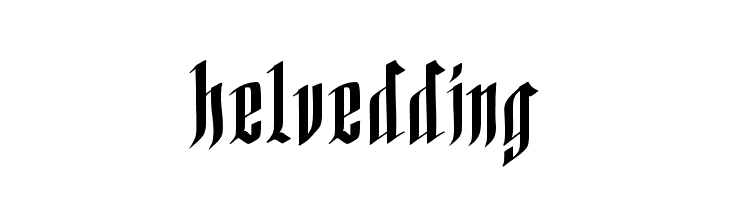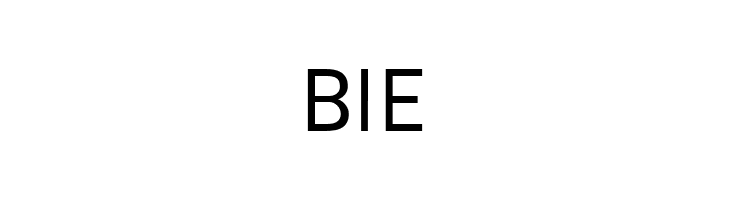
( Lukas Schiltknecht - www.getthepro.ch )
A classic Blackletter font with intricate, ornate letterforms and a Gothic aesthetic.
( Mega Type - creativemarket.com/megatype )
An elegant script font with intricate loops and swashes, perfect for sophisticated designs.
( NewMoleFont )
A pixelated, retro-style font with a blocky, grid-like design.
( NimaVisual - Nima Visual - nimavisual.tumblr.com/ )
A rough, textured serif font with a vintage, distressed appearance.
( Odile Morales )
A modern, geometric font with consistent stroke width and angular design.
( PutraCetol Studio - Putra Novembria Candra Kusuma - creativemarket.com/putracetol )
A flowing, elegant cursive font with graceful loops and smooth connections.
( Robin Campistron - www.rcgraphics.fr )
A modern, geometric sans-serif font with a clean and minimalist design.
( Solidtype - bit.ly/2OxZn2V )
A clean, modern sans-serif font with uniform stroke width and excellent legibility.
( Wacaksara Co - www.wacaksara.co )
A bold, expressive script font with flowing, cursive letterforms.
( Xerographer Fonts - Max Infeld - xerographer.blogspot.com )
A geometric, modern font with clean lines and angular shapes.